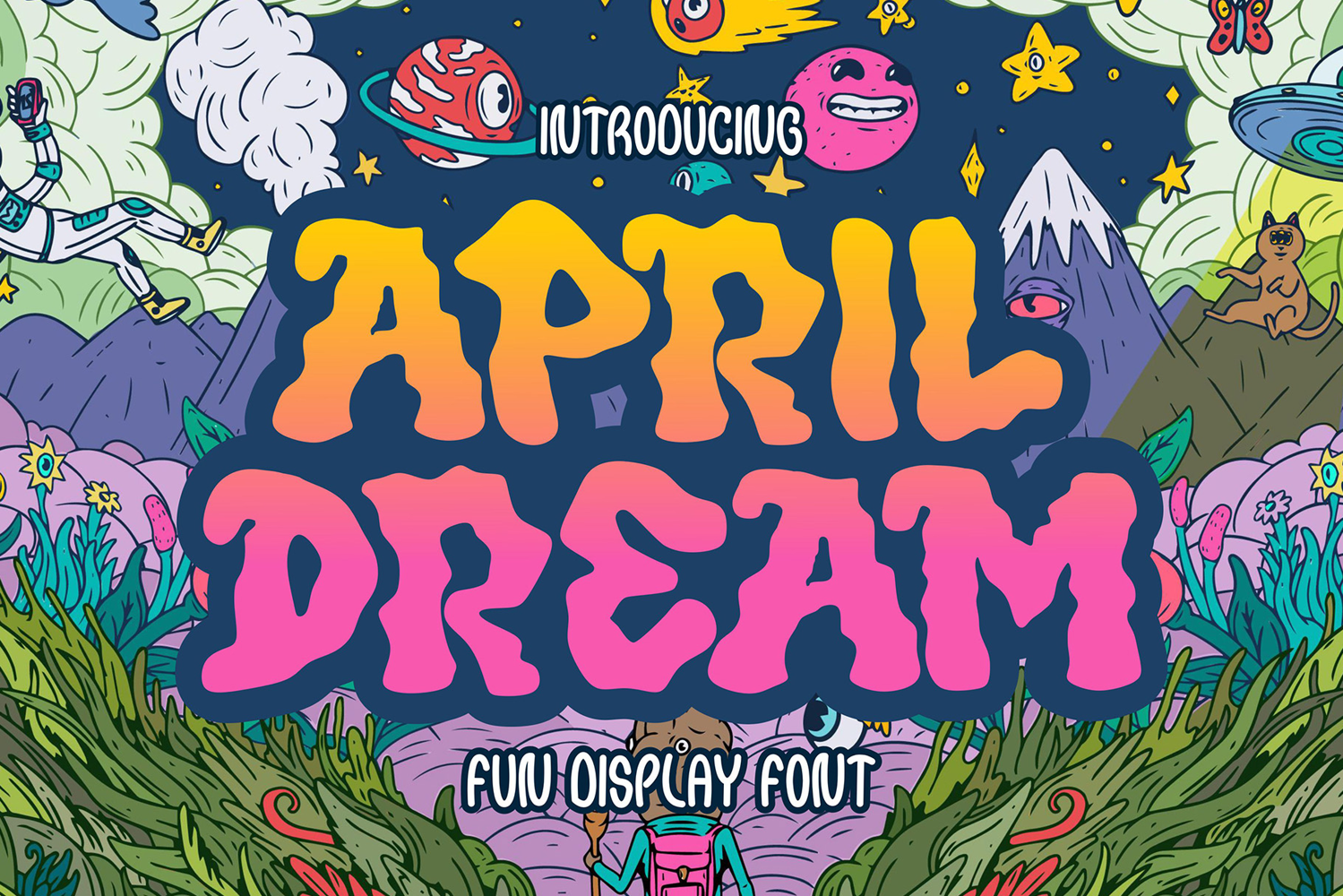
Experience the whimsical wonder of April Dream – the fun display font that sparks joy and ignites imagination in every design. Bursting with playful charm and delightful details, April Dream is more than just a font – it's a magical tool for bringing your creative visions to life with a touch of lighthearted fun.
April Dream